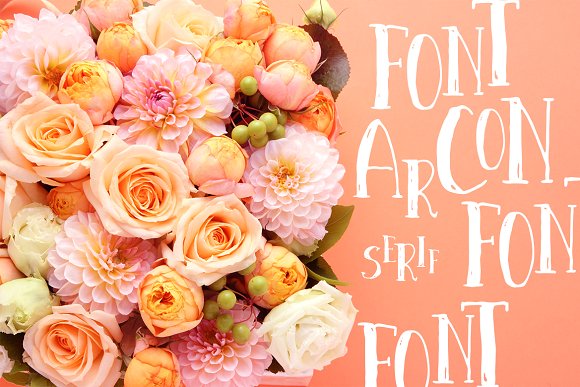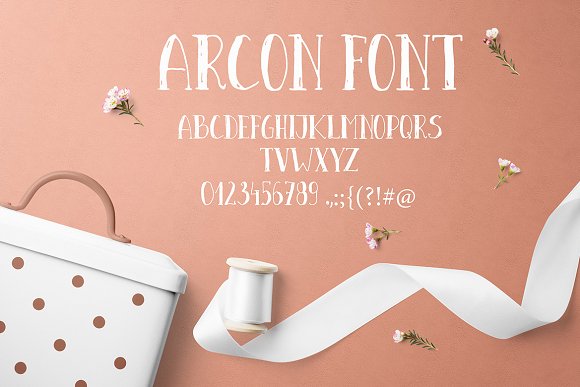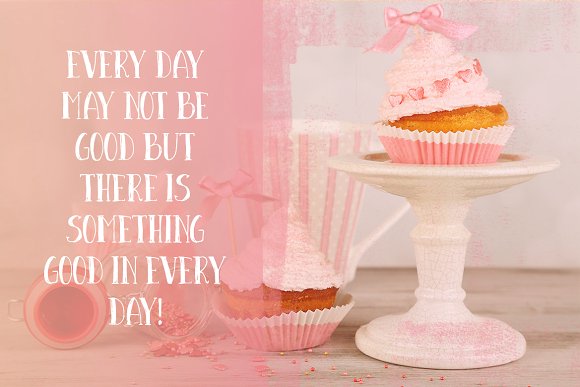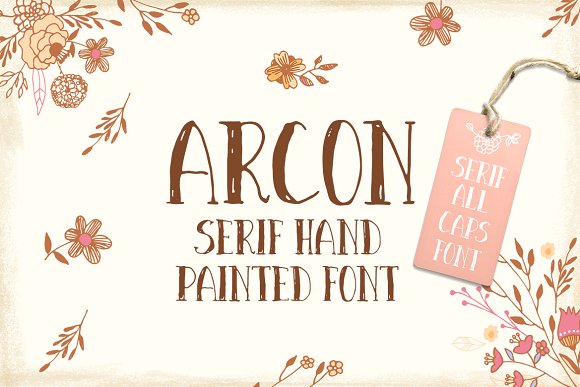
Arcon Serif Font
Arcon – hand painted serif font. Ideal for invitations, logos, branding, blogs, handmade craft items, scrap booking, printed paper items and more.